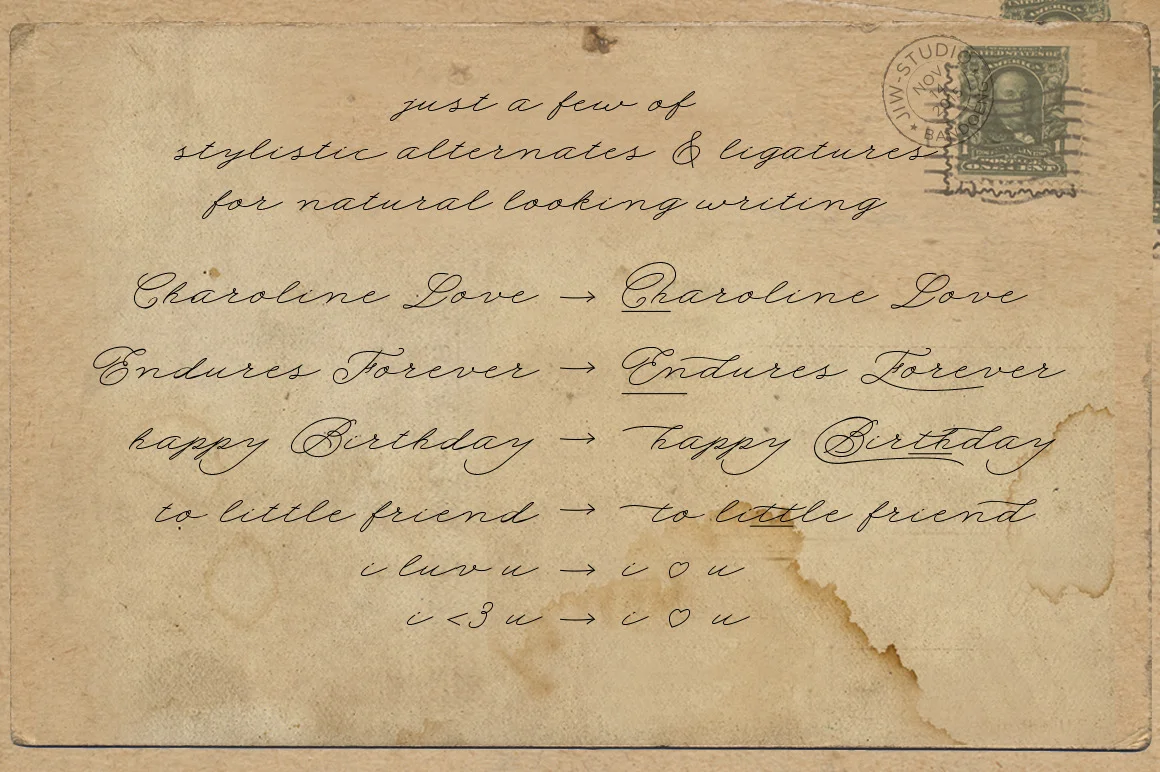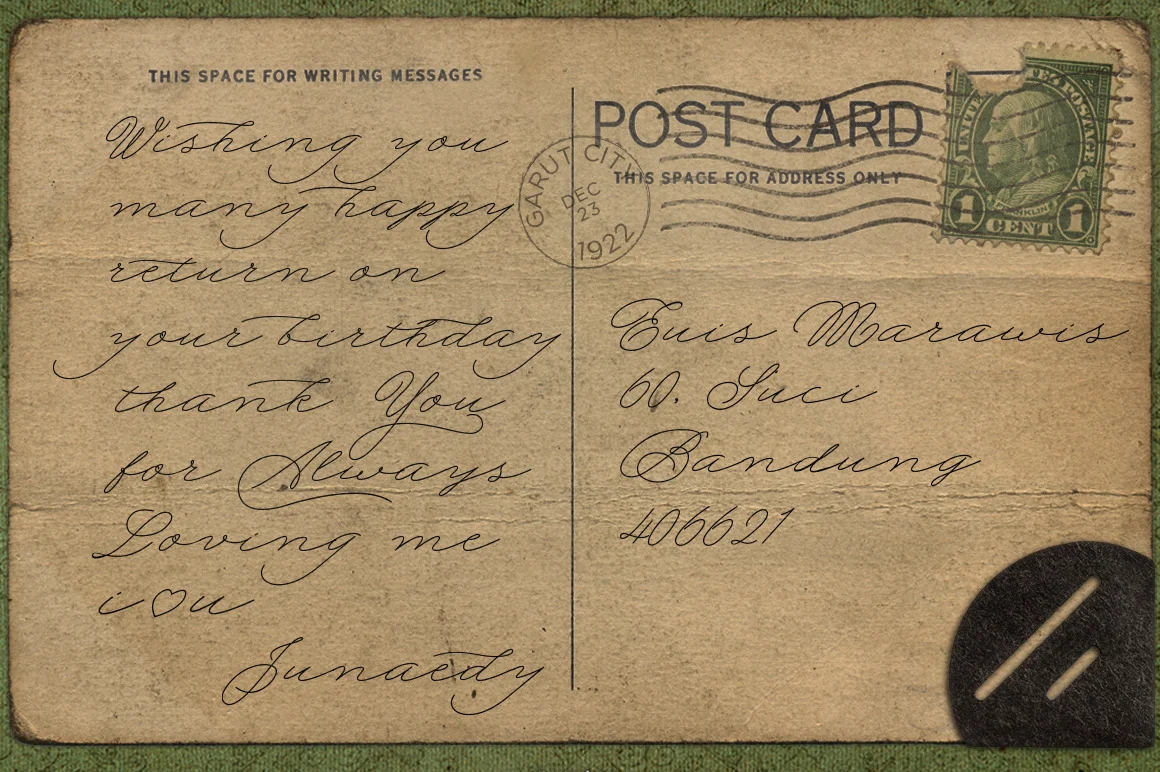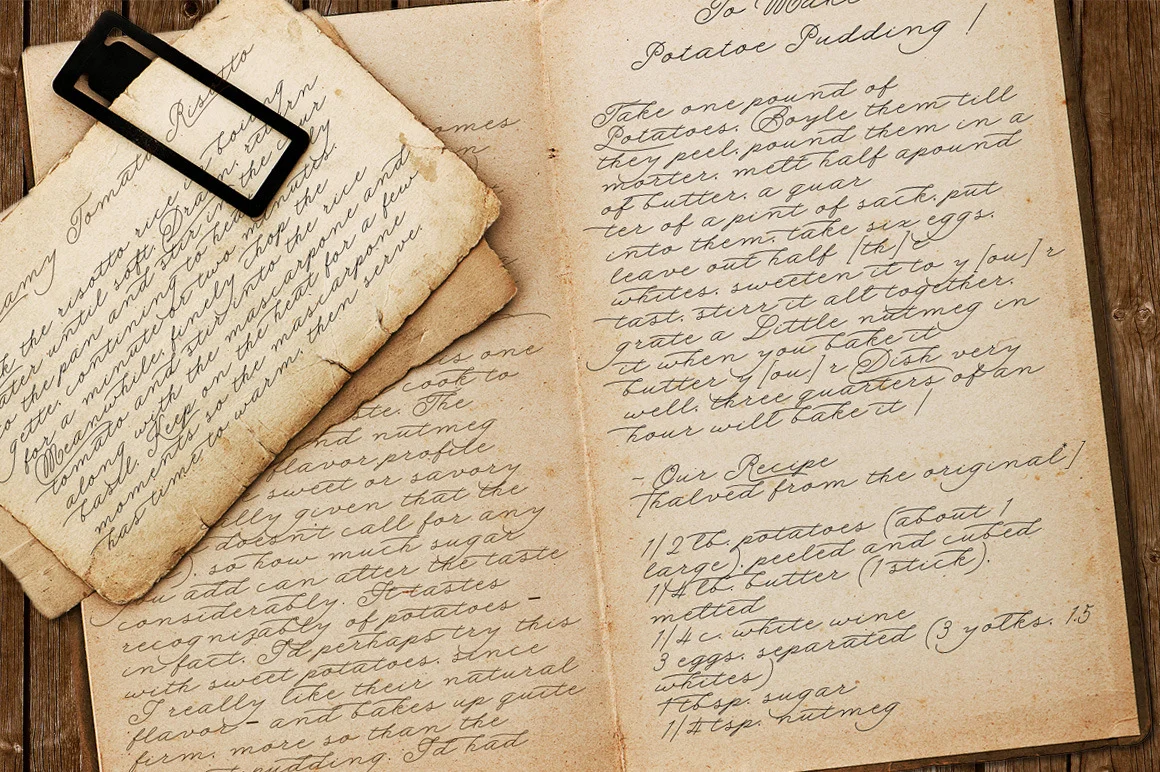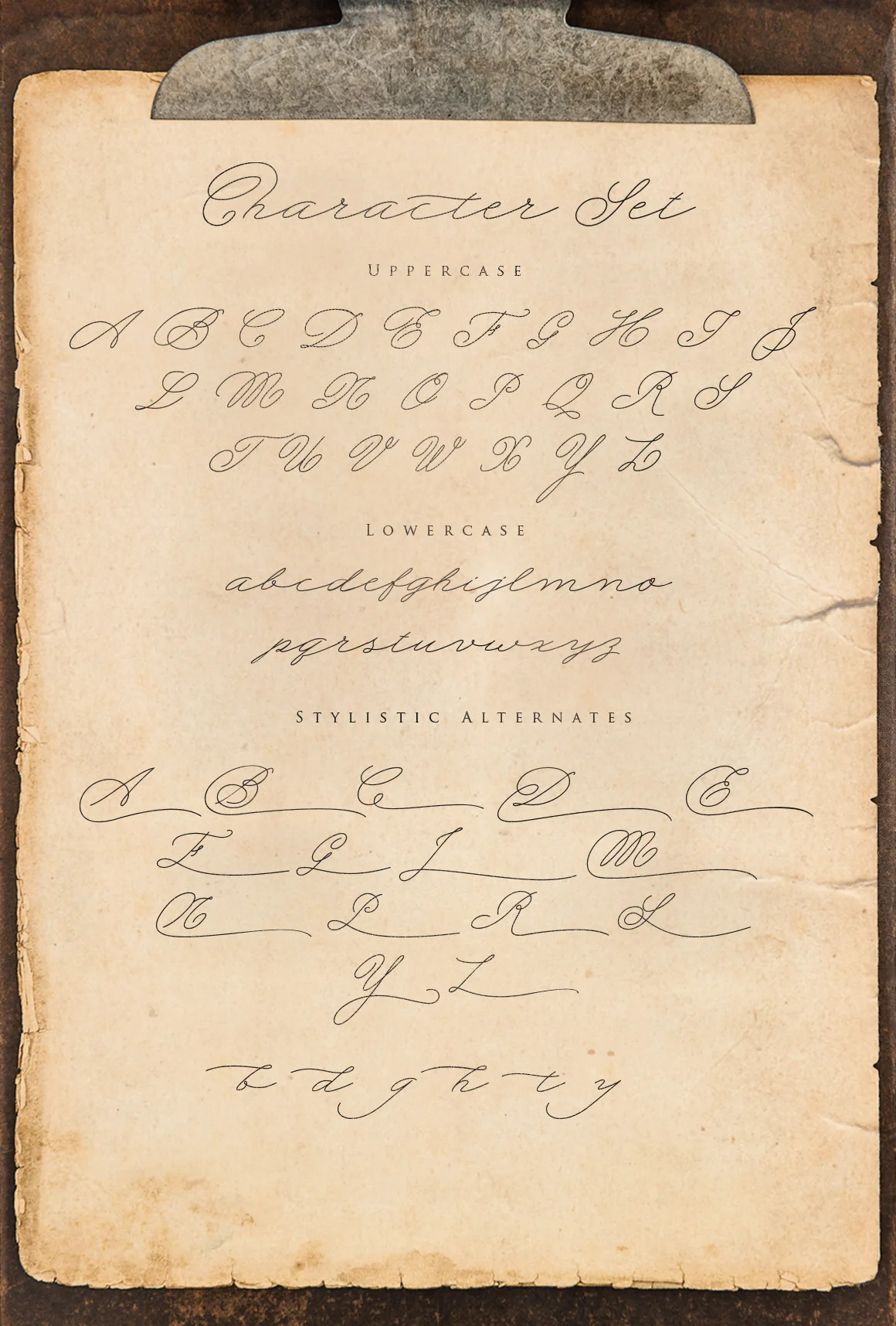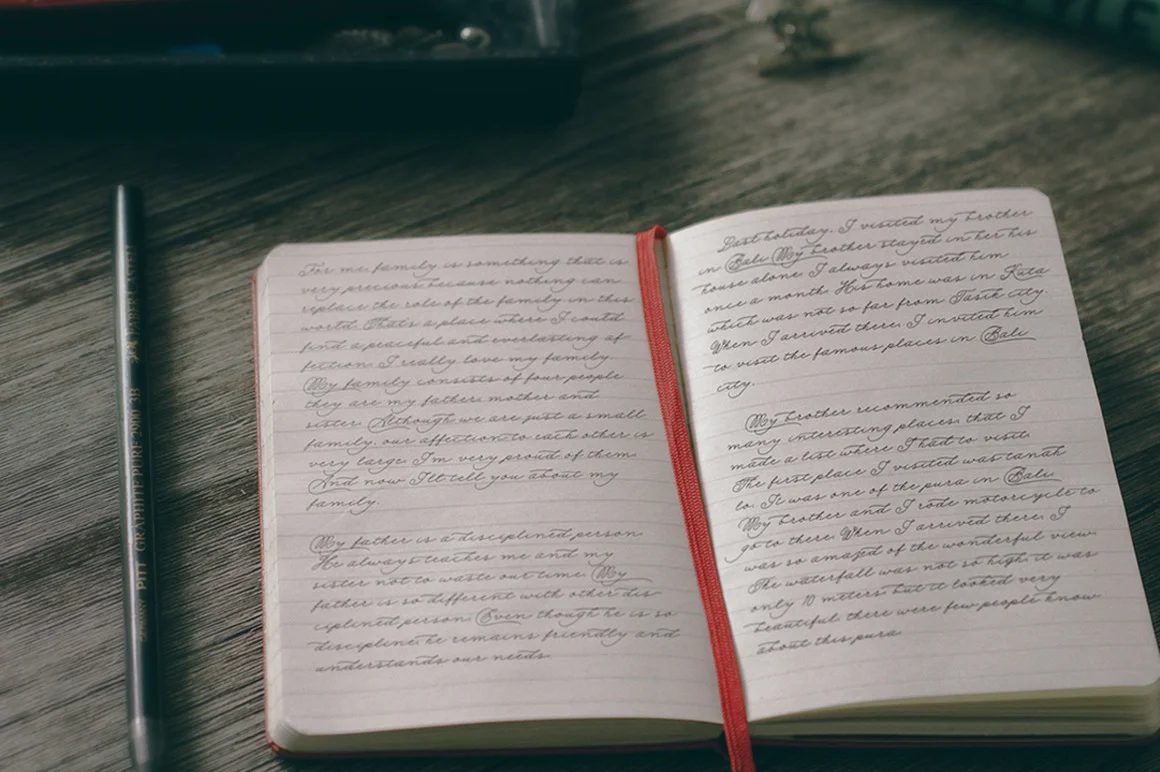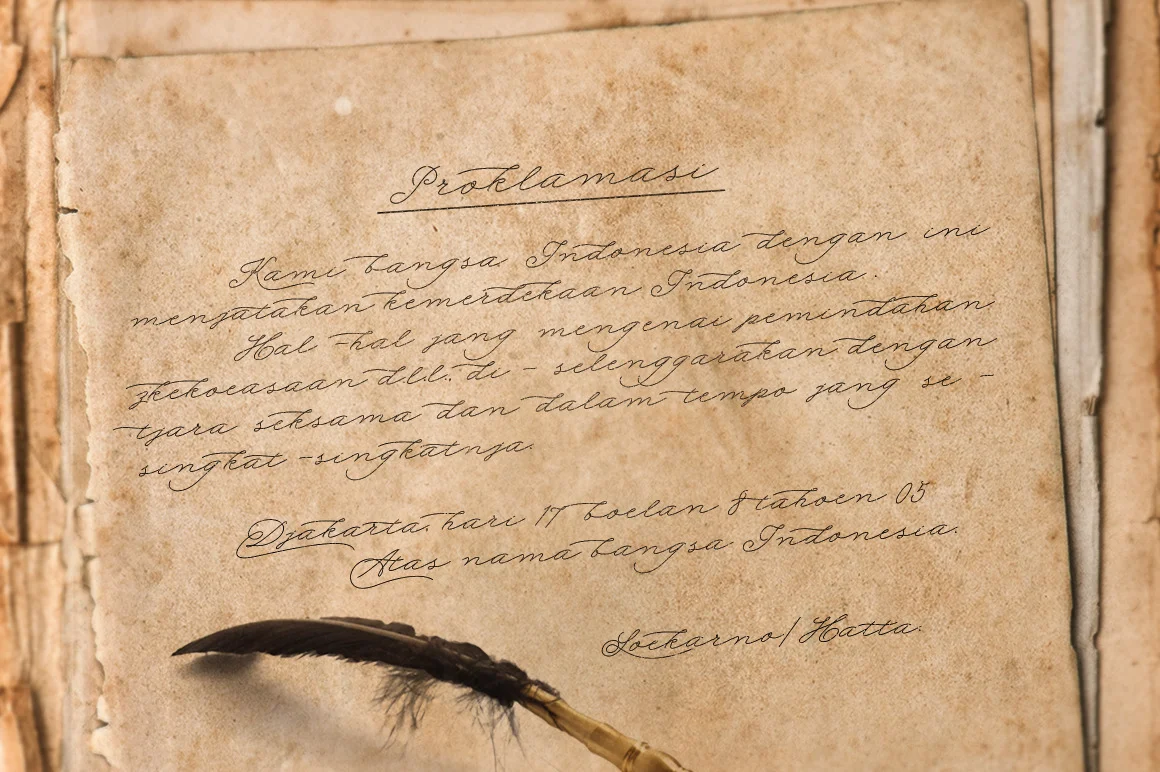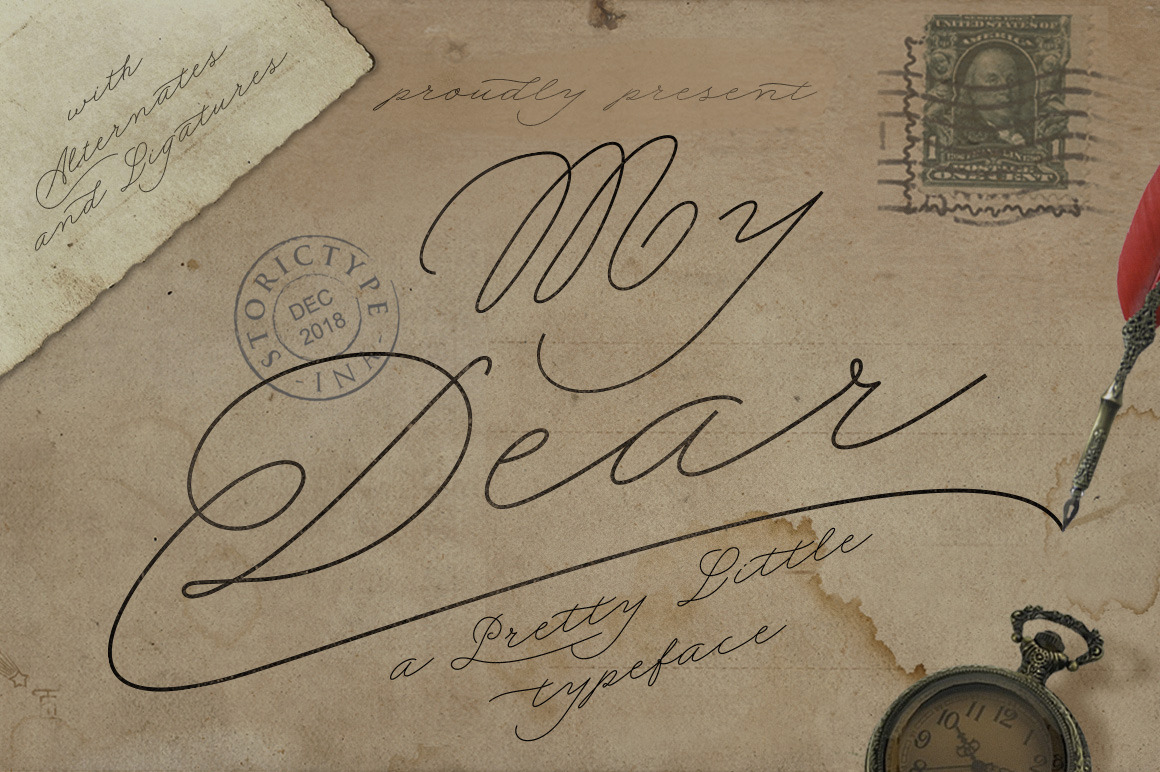
My Dear Script Font
A good typeface communicates tone before a single word is read. My Dear Script achieves this through distinctive character without sacrificing readability. The typeface brings an elegant, calligraphic sensibility to a broad range of creative disciplines, with optical balance across all weights that holds up whether the work is print-first or screen-first.
In practice, My Dear Script proves particularly effective for fashion editorials, high-end cosmetic packaging, editorial layouts, bridal materials, feminine branding. Designers reaching for it find that the type decisions feel resolved rather than laboured — a useful quality when client timelines are tight.
The range of applications extends to wedding invitations, environmental graphics, brand identity systems, poster creation. That breadth is deliberate: the proportions and spacing were stress-tested across a wide range of mock briefs before the typeface was finalised.
My Dear Script sits comfortably alongside both classic and contemporary typefaces in multi-font hierarchies. It takes direction rather than competing for attention — a quality that experienced designers know is harder to find than it appears.
UX designers establishing typographic systems for digital products find My Dear Script a reliable choice for projects that demand both personality and restraint. The design avoids the self-conscious quirkiness that dates quickly, settling instead for considered distinctiveness that holds up over time.